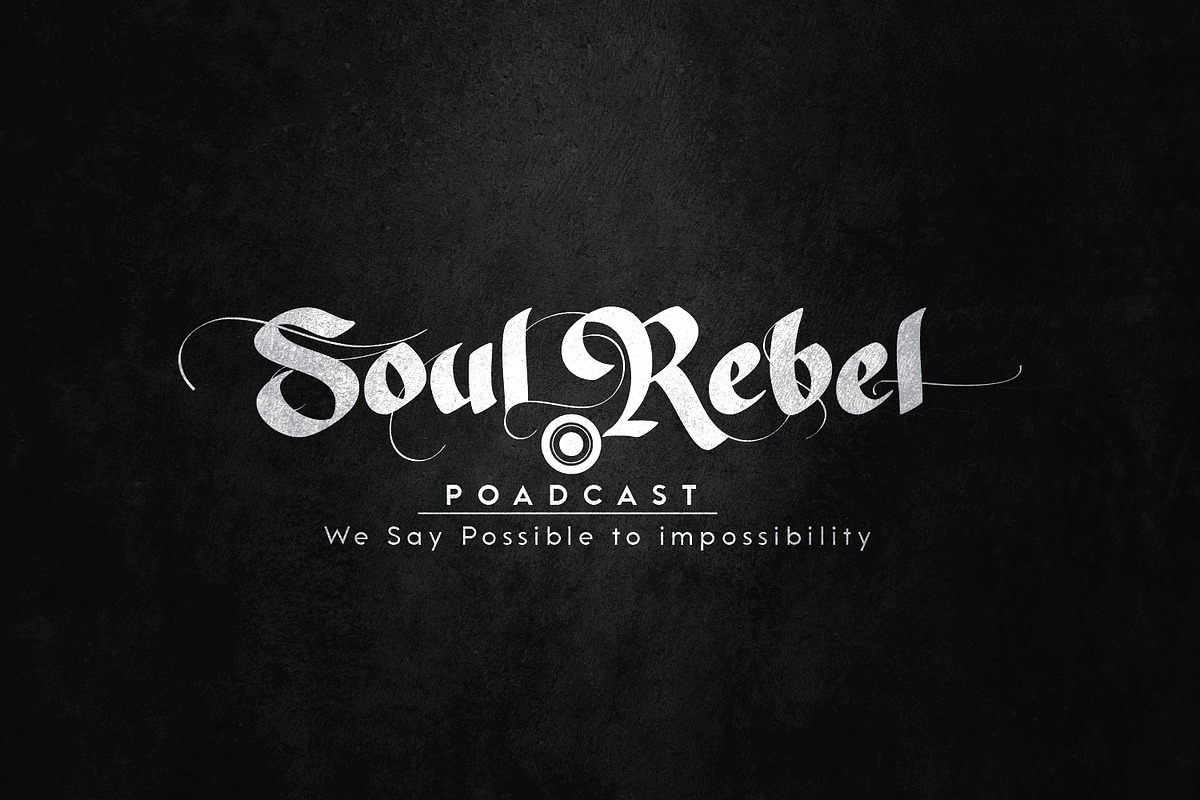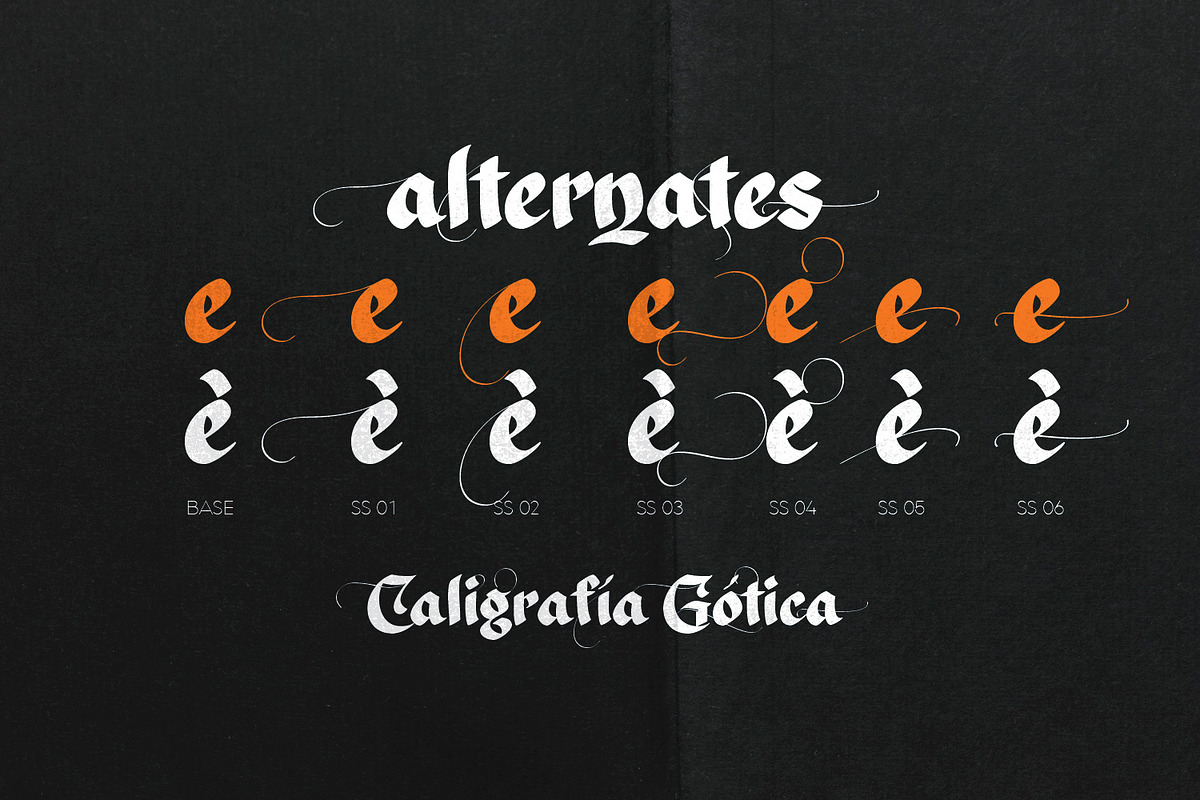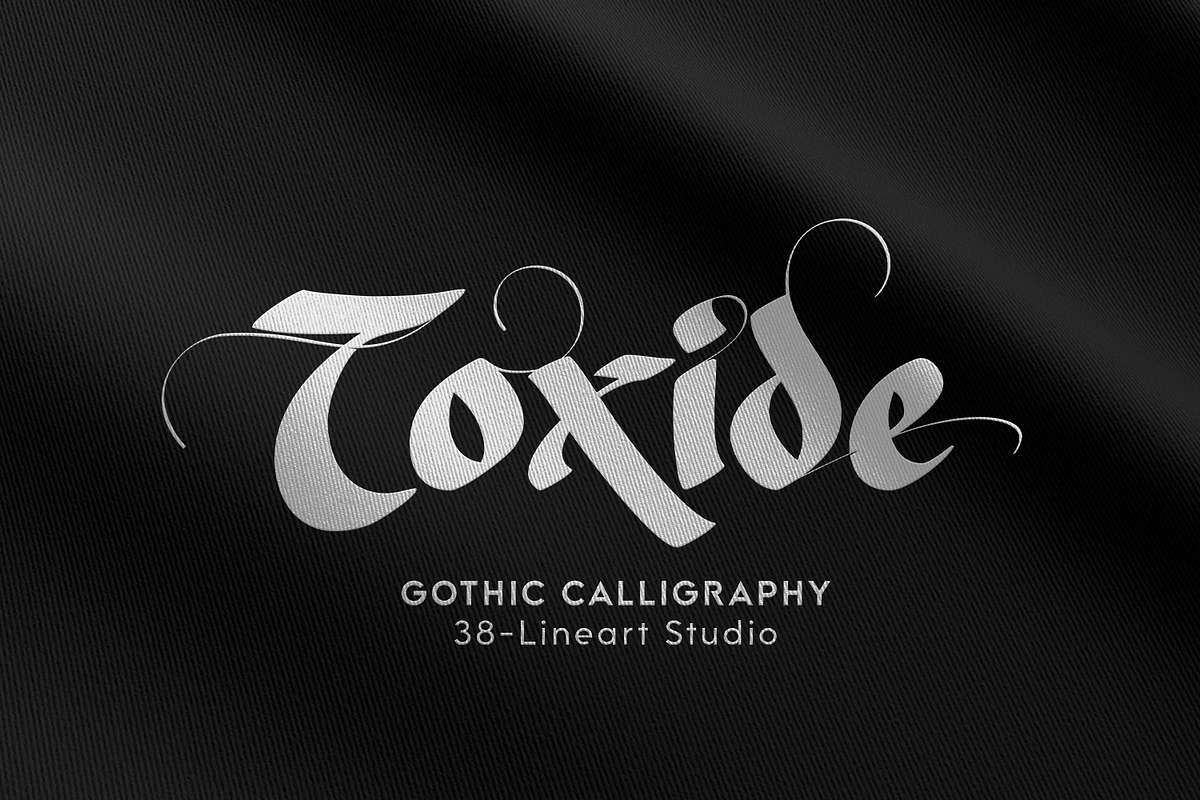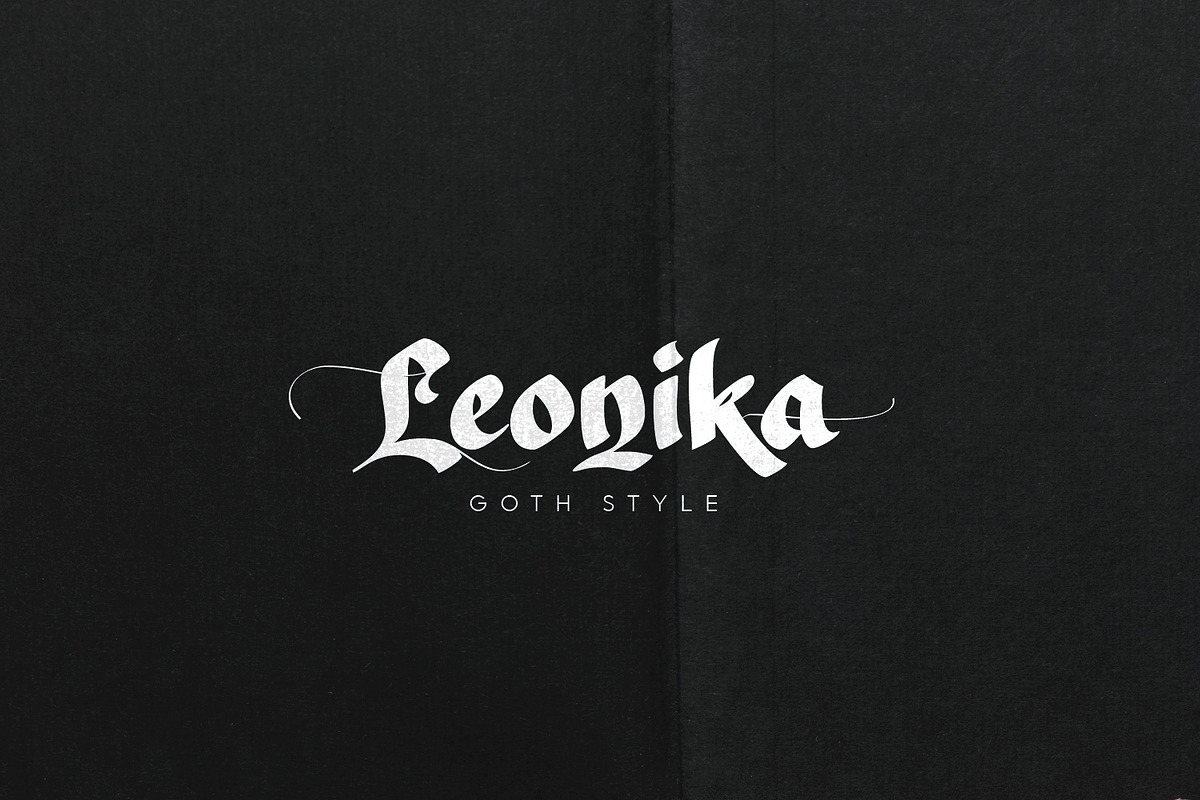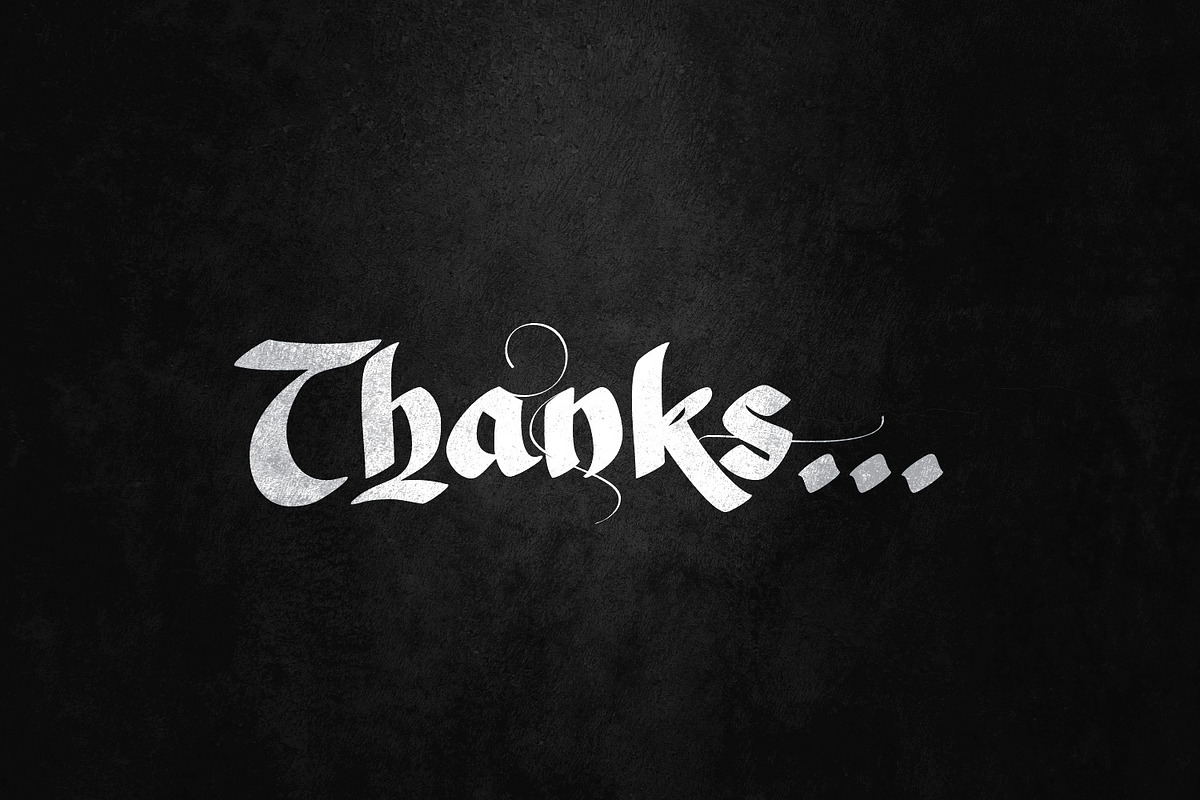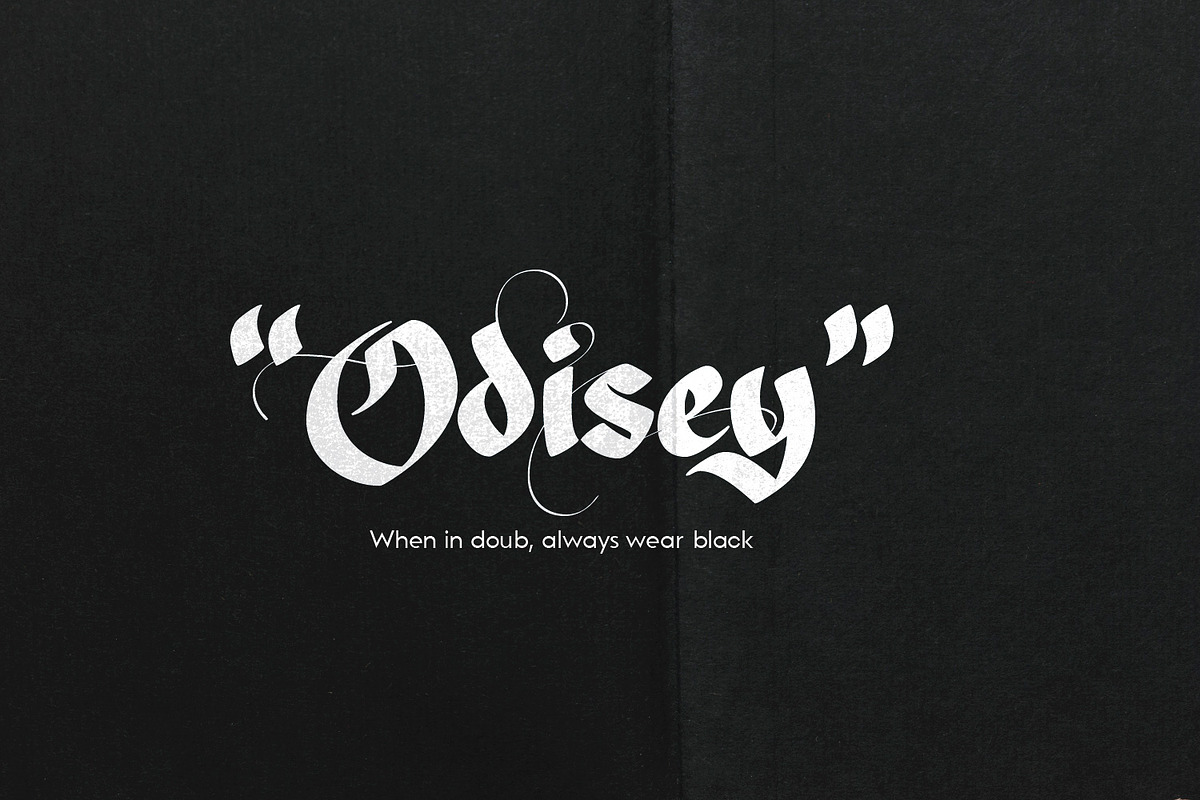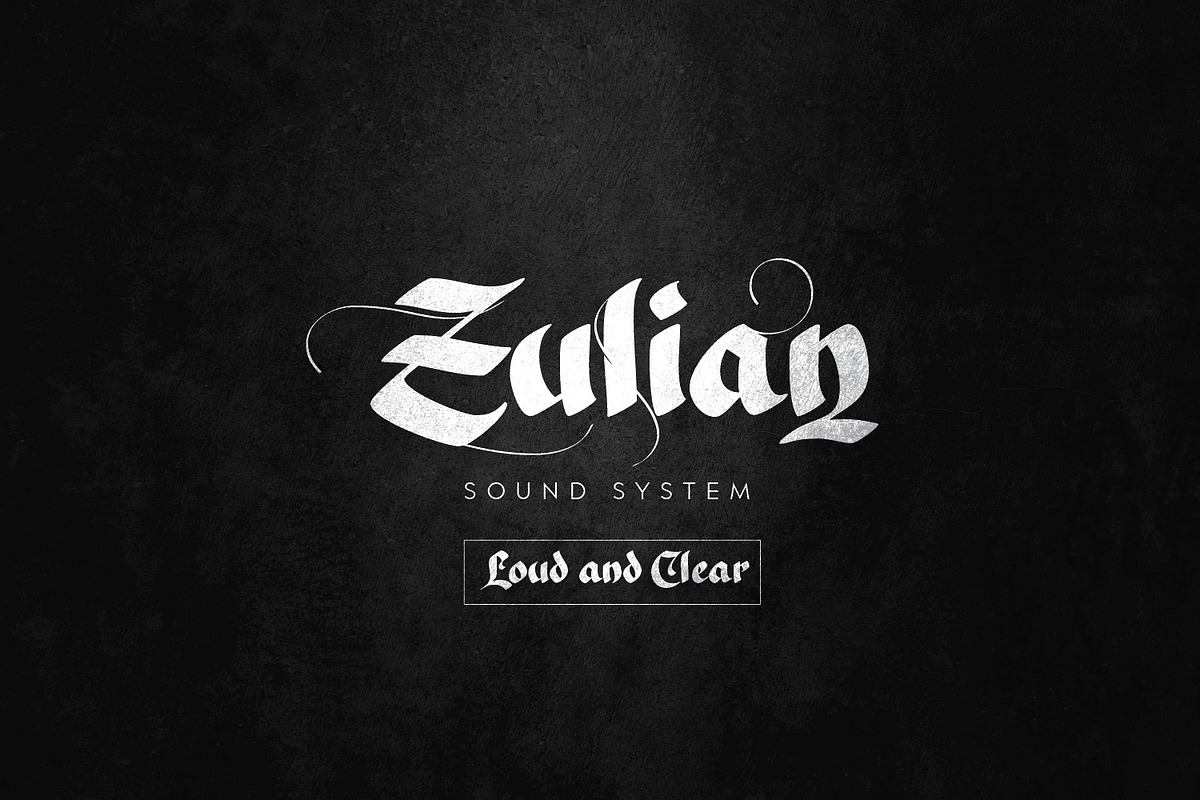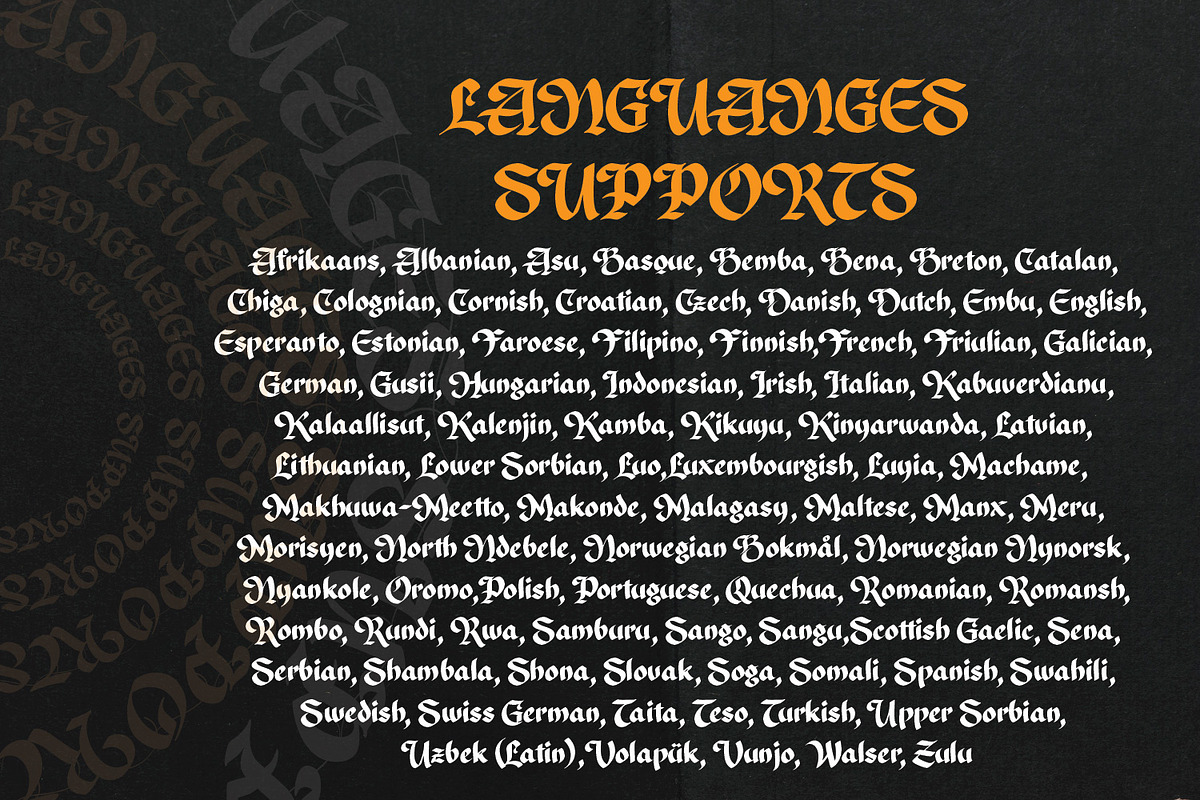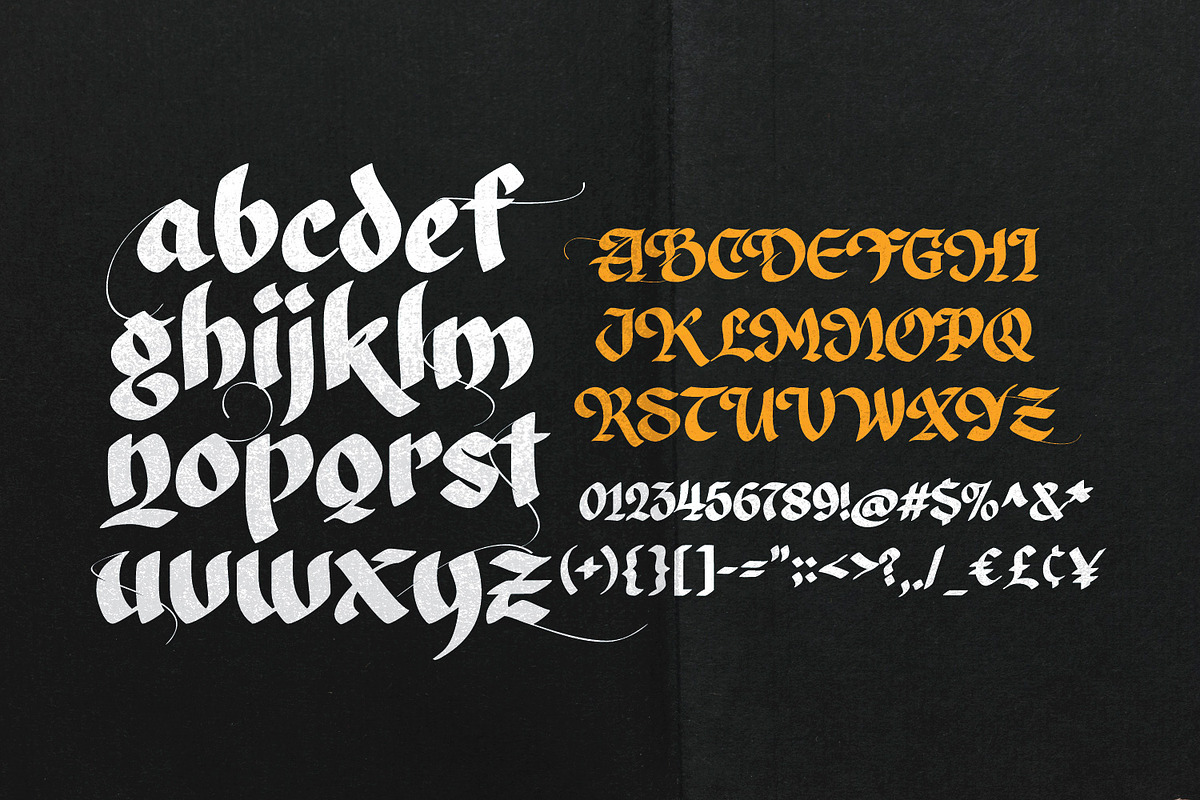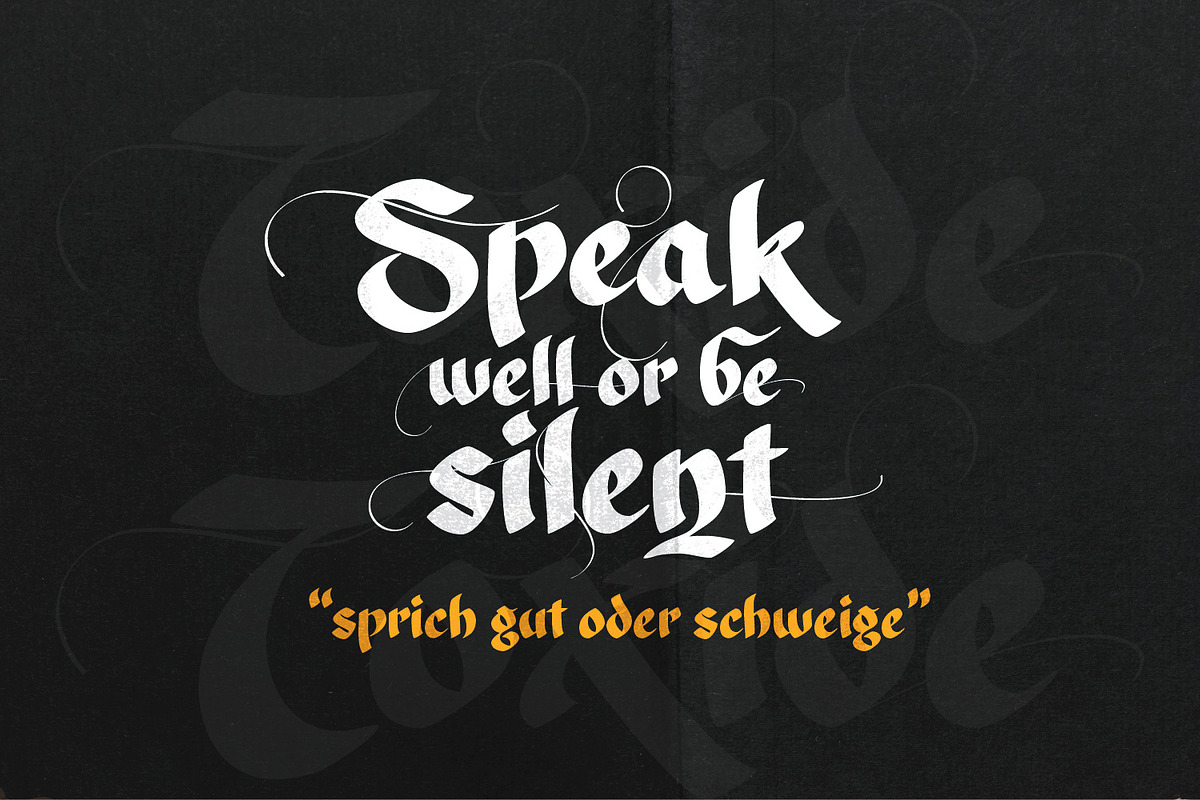
Toxide-Blackletter
Toxide is a gothic font inspired by Celtic and uncial style. We give a unique touch so that this display font is very suitable for brands, logotypes, headlines, badges, video titles as well as for book and magazine covers. This font supports Latin diacritic for basic glyph along with its 7 stylistic sets. A total of 1193 glyphs give you the flexibility to choose the right glyph in your design. Please enjoy and have fun with the stylistic set game that you like while you feel the classic feel in a modern design